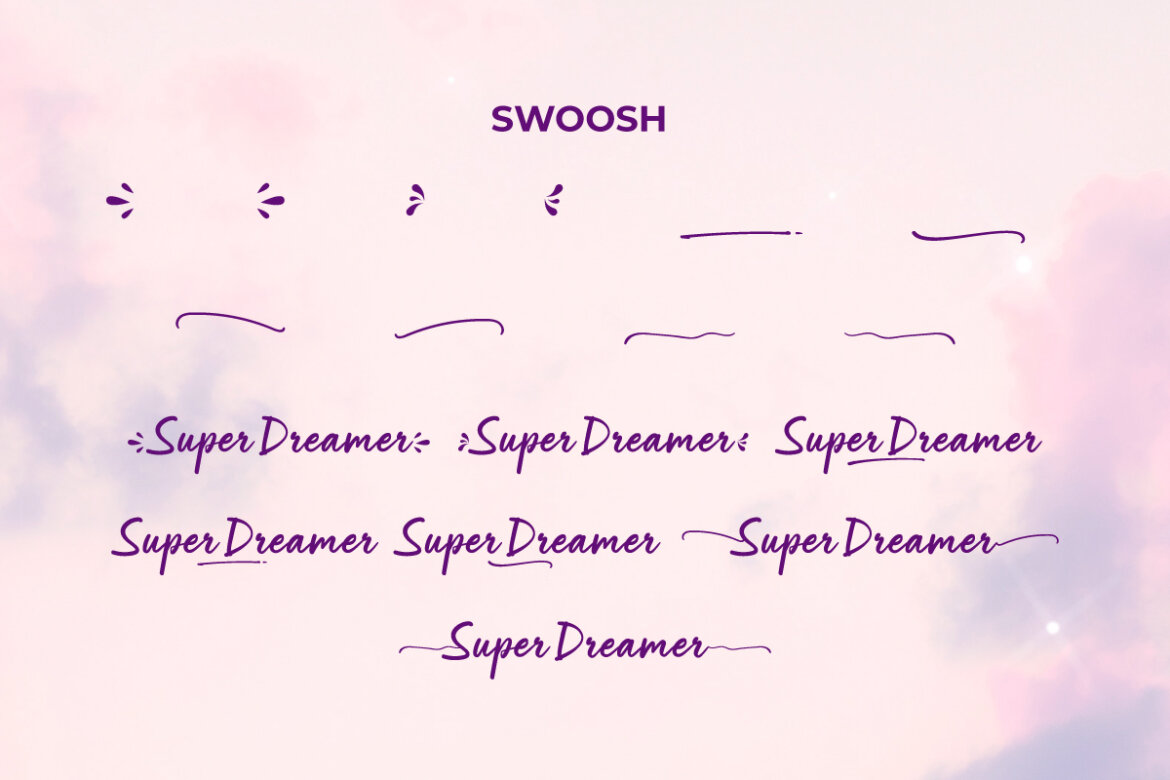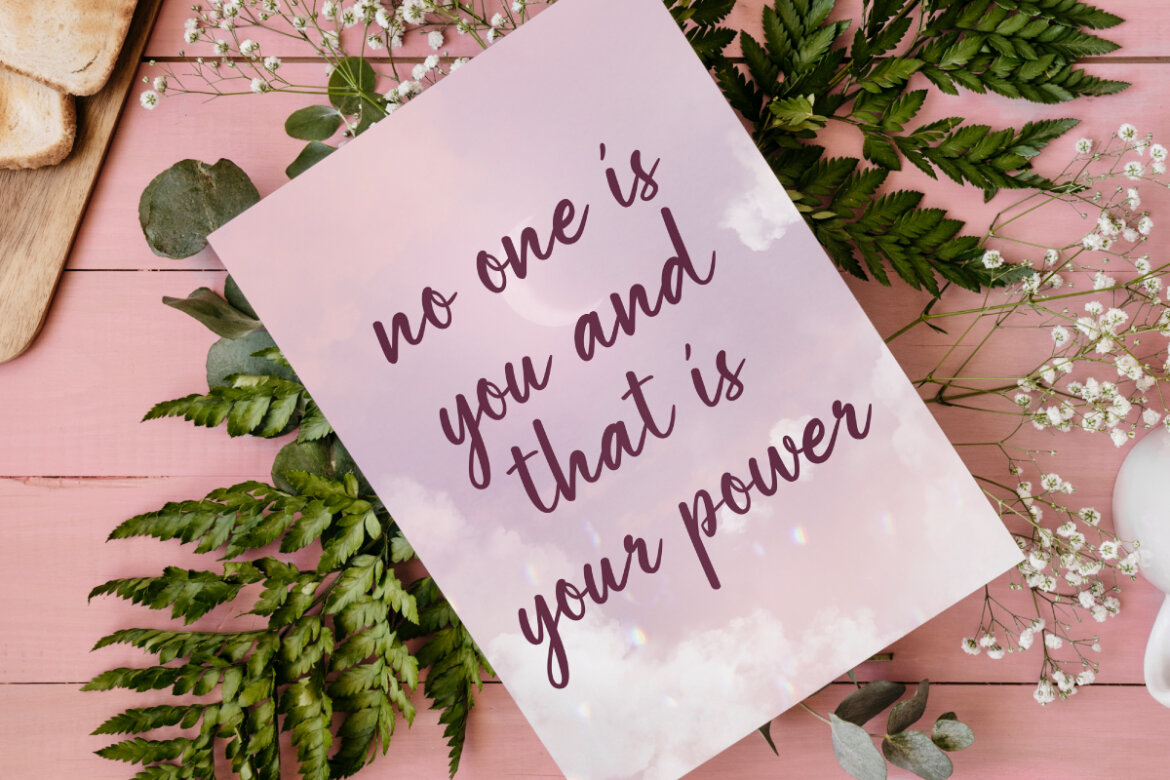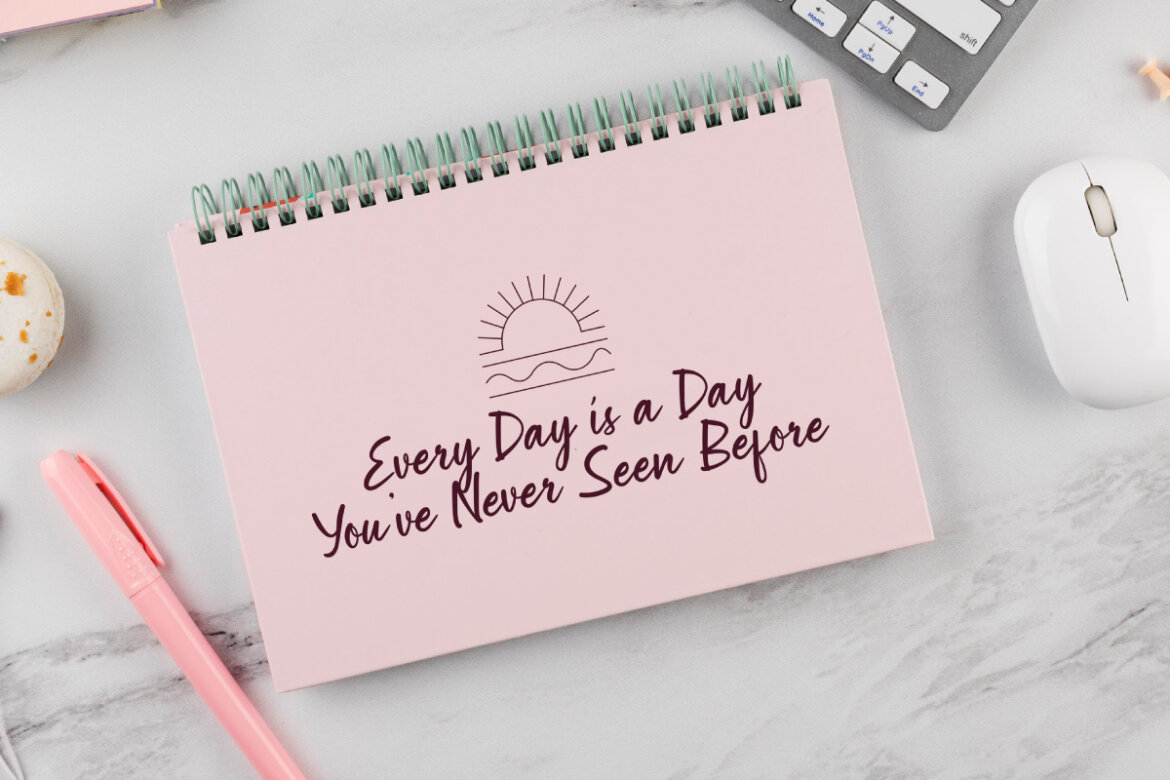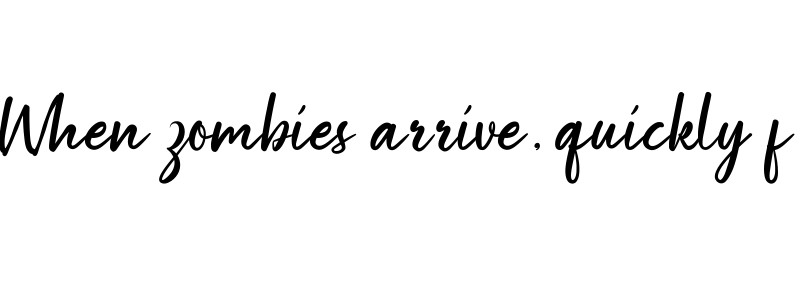
Super Dreamer
Super Dreamer Font is a fancy thin brush calligraphy writing script font. It offers a free-flowing and natural handwriting style. It has a relaxed and friendly aesthetic that can add a human touch to any design, such as blogs, brand logo, cards, cover, custom mockup, header, print on fabrics, quotes, social media post, template design, title, website, and others.
Super Dreamer Font was created with the title’s fairy theme in mind. This can include true calligraphy script typography. Because it looks clean, tidy and adds an elegant impression to your project. Useful for industries such as, accessories and gifts, body care, children’s toys, decoration products, fashion, florist, graphic design, household, jewelry, office stationery, photography, printing, publishing, writer, and so on.
Super Dreamer Font comes with a complete set of Uppercase and Lowercase Basic Characters, Number, a large range of Punctuation, and Symbol. It is also supported with Ligature, Swoosh, and multilingual characters ready to be used on Windows or Mac machines with simple installation. It’s tested to work well in the Adobe Apps (Illustrator, Adobe InDesign, Adobe Photoshop) CorelDraw, and others. PUA Encode Characters means you can access all the characters easily – Fully accessible without additional design software.